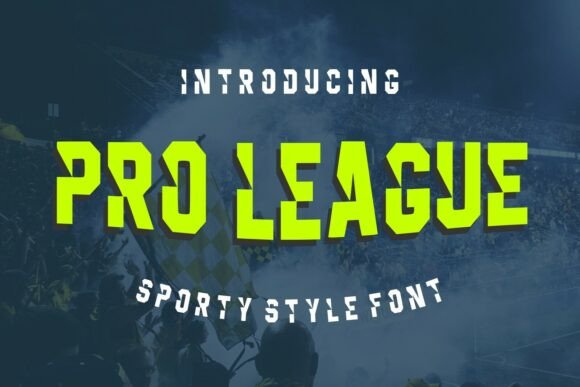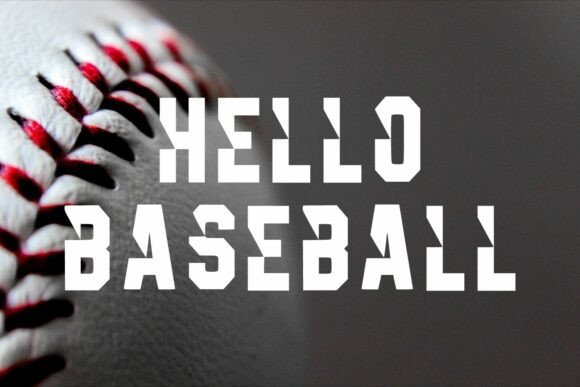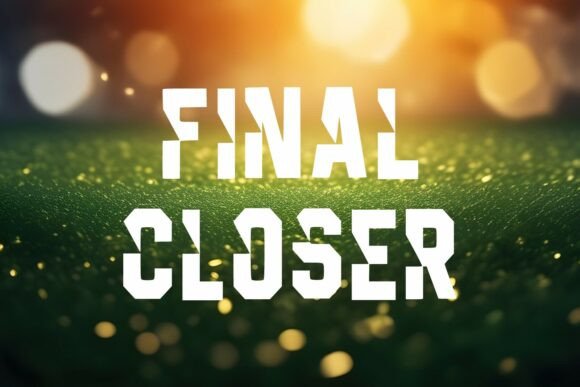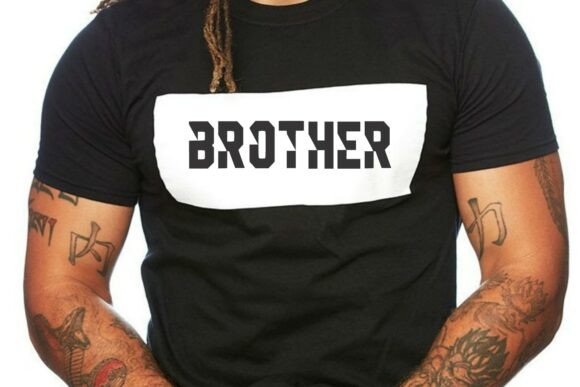
Pro League Font: A Bold Display Font for Sports Logos & Branding
About the Pro League Font
Make a bold statement with Pro League Font, a powerful and memorable font. Pro League is a sports classic display font, inspired by Baseball. This bold and dynamic font captures the energy and excitement of sports. It features a strong and commanding look, with thick lines and sharp edges that convey power and athleticism.
Pro League excels in large-scale applications such as headlines, logos for sports brands, and posters promoting sporting events. Its bold presence commands attention, making it ideal for impactful statements. However, its weight and strong character make it unsuitable for body text or UI elements where readability is paramount. Avoid using it for long paragraphs or small sizes.
This font’s core personality is bold and energetic, reflecting power and dynamism. It would be a strong choice for brands projecting strength, competition, and high energy, fitting for athletic apparel, energy drinks, or even certain automotive brands.
Pairing Pro League with a clean sans-serif like Open Sans for body text provides excellent contrast and readability. For a more vintage feel, consider a classic serif such as Garamond. A geometric sans-serif could also work well, offering a modern counterpoint to Pro League’s athletic style.